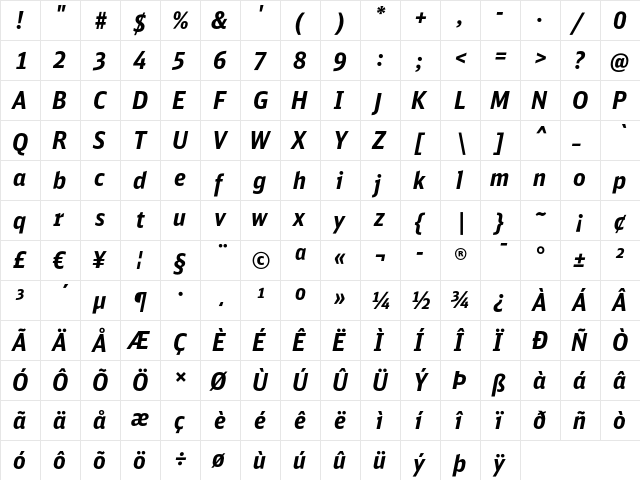
DB Sans Cond Bold Italic Font Preview
Design Context for DB Sans Cond Typeface
DB Sans Cond takes a measured approach to typography — its balanced proportions and neutral character make it a reliable workhorse for both digital and print work. The dynamic lean of this cut emphasises speed and emphasis in any layout. Its bold stroke weight gives it real presence on the page. Its narrow stance lets it pack a punch even in space-constrained designs.
Pro Tip: Try DB Sans Cond for annotation and caption copy alongside an upright companion — the contrast in angle creates a dynamic but ordered typographic system.